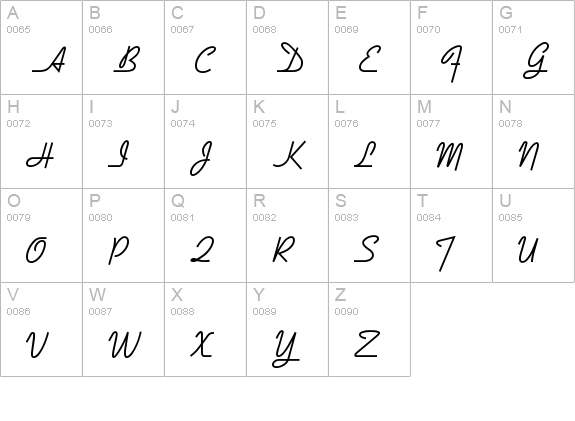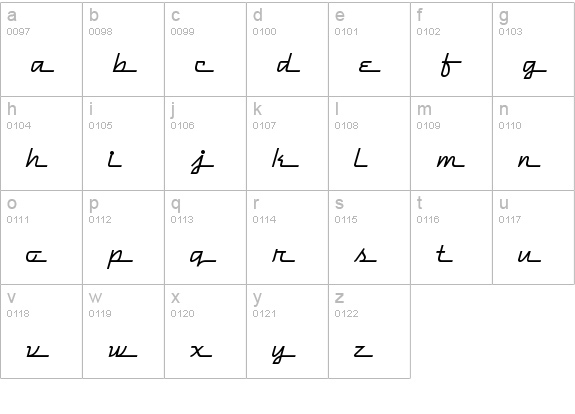
DymaxionScript Font Details
DymaxionScript is a stunning and versatile font that exudes elegance and modernity. Its sleek lines and unique style make it perfect for a wide range of design projects, from branding to editorial layouts. The fluidity of the letters gives a sense of movement and dynamism, adding a touch of sophistication to any design. What sets DymaxionScript apart is not only its aesthetic appeal but also the fact that it is available for free download at FontsMarket.com. This means that designers and creatives can access this beautiful font without any cost, making it a valuable resource for any project. Whether you're working on a logo, a website, or a poster, DymaxionScript will make your text stand out and leave a lasting impression. Its clean lines and contemporary feel make it a versatile choice for any design need. Download DymaxionScript for free today and elevate your design projects to new heights.